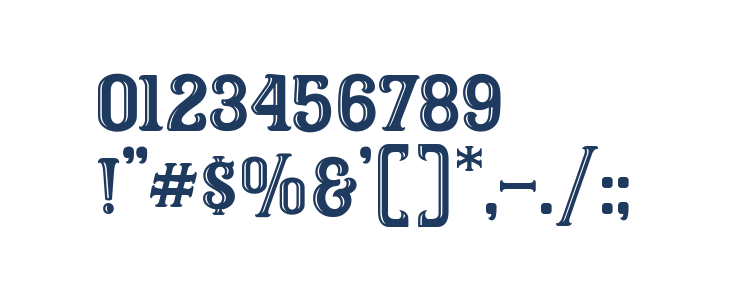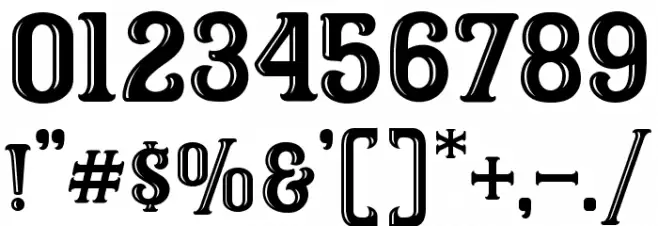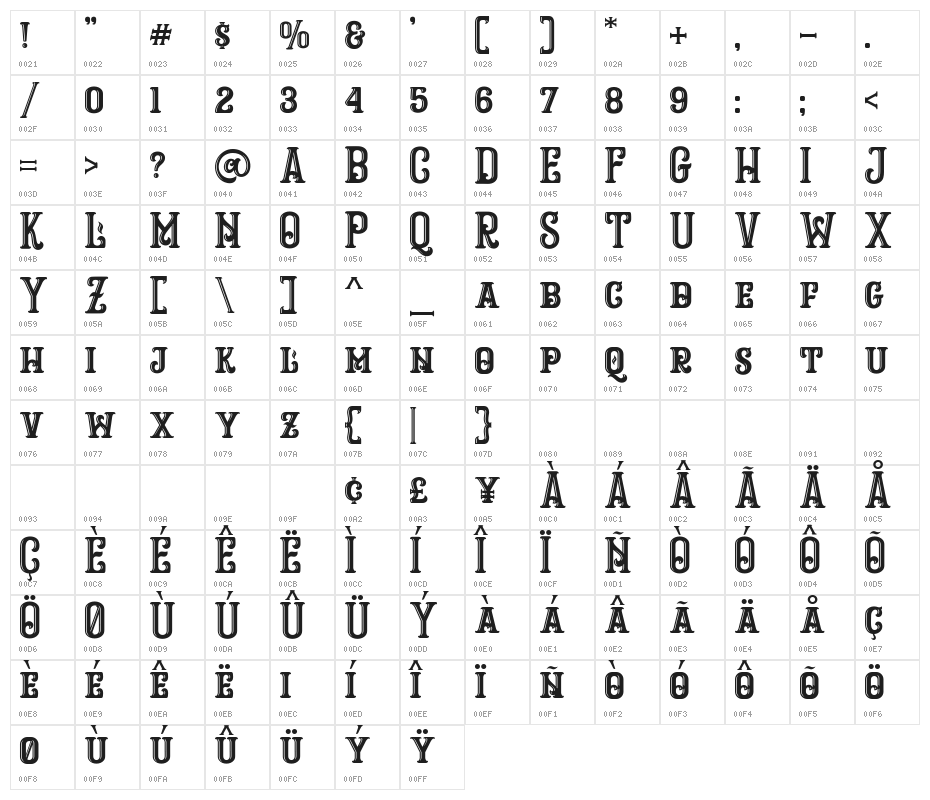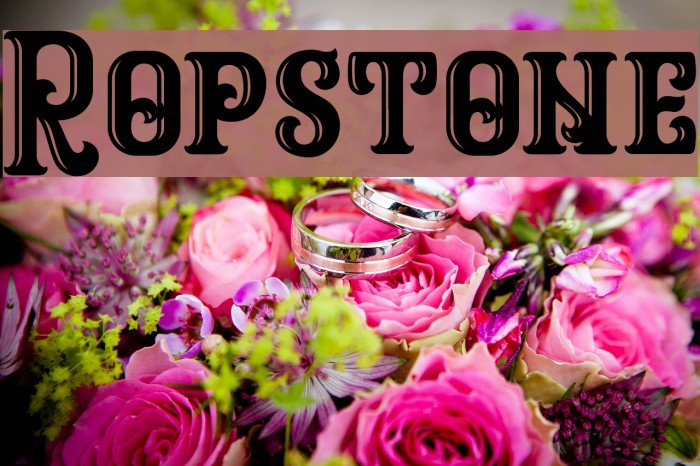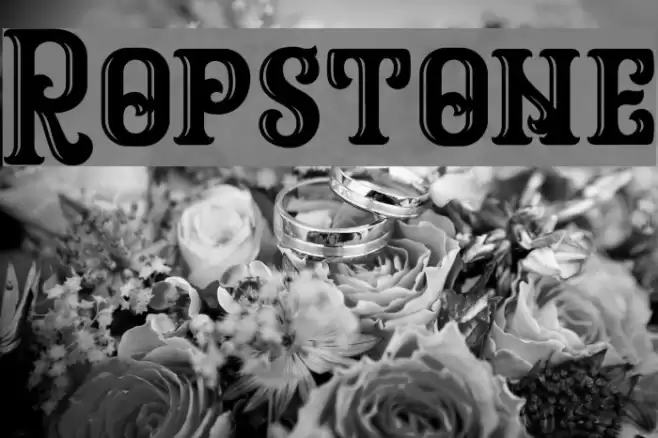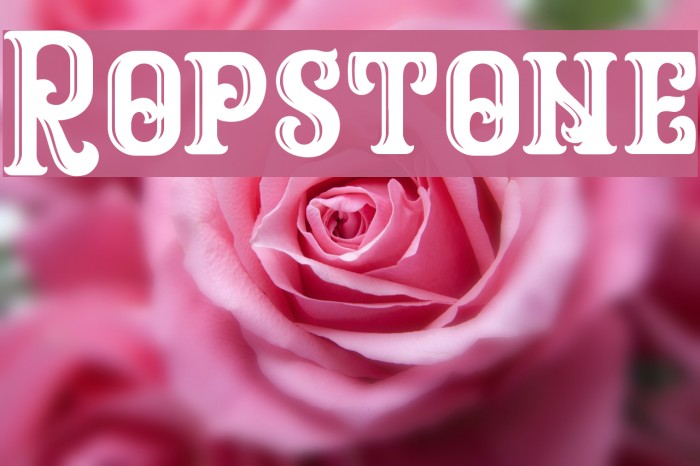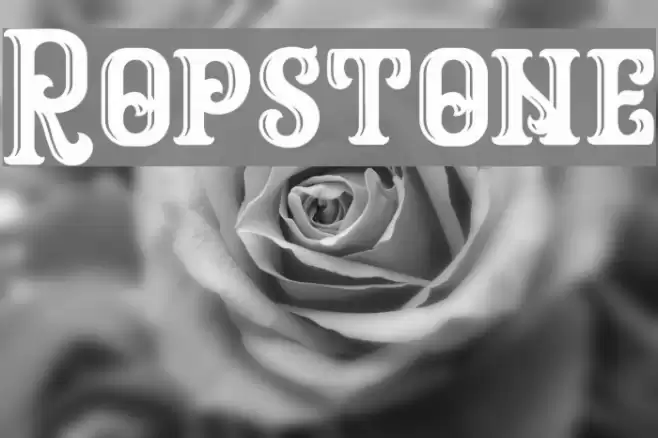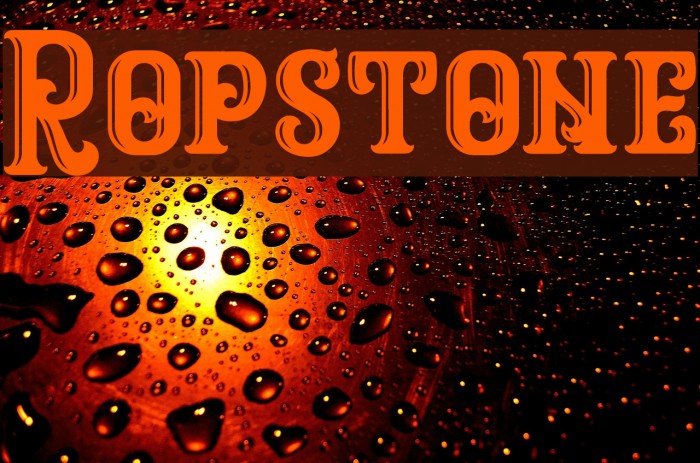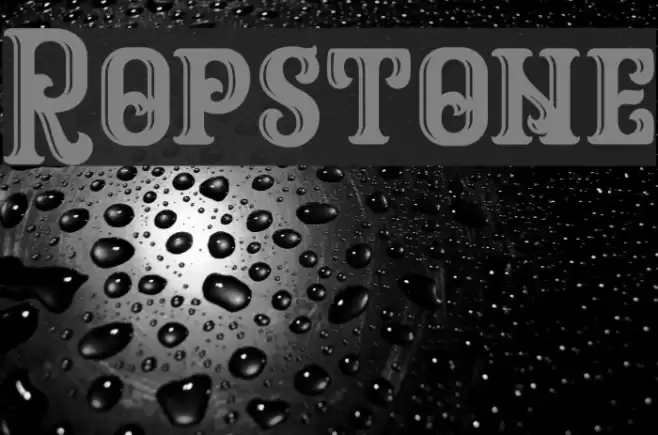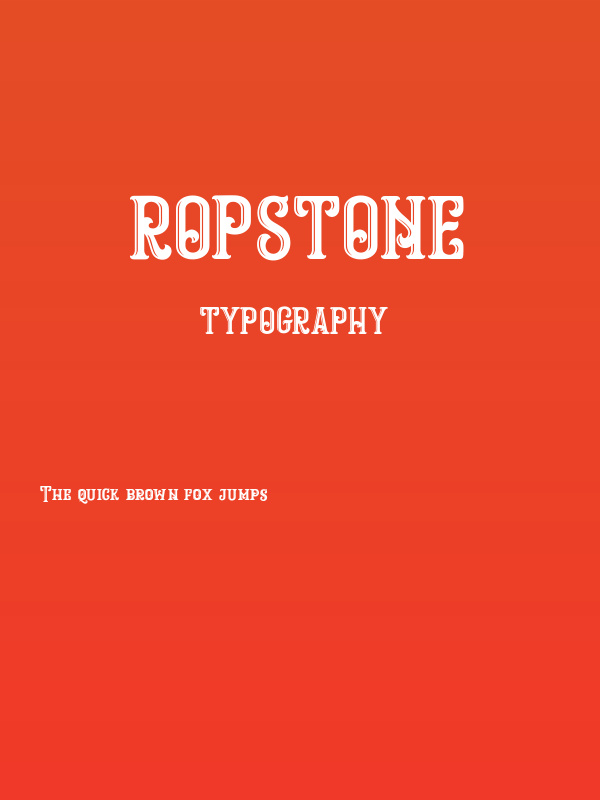
Ropstone Font
Ropstone Description
This font features a bold and decorative style with a strong presence, characterized by its thick strokes and unique cut-out details within each character. The uppercase letters are particularly striking, with a vintage flair that evokes a sense of nostalgia. The lowercase letters maintain the same boldness, ensuring consistency across different text cases. Numbers and special characters are equally bold, making them stand out in any design. The overall design is reminiscent of old-school signage or posters, making it ideal for projects that require a touch of retro charm.
| Proposed Projects | Ideal for vintage-themed posters, signage, branding, and logo design. |